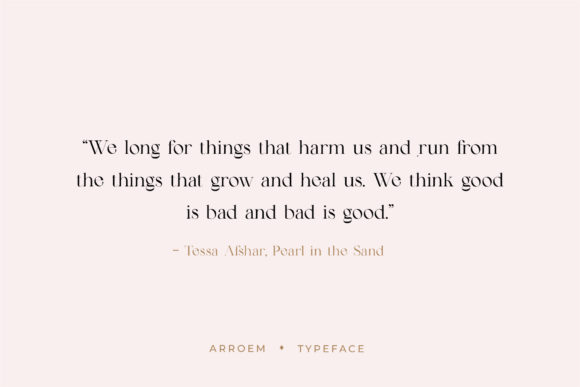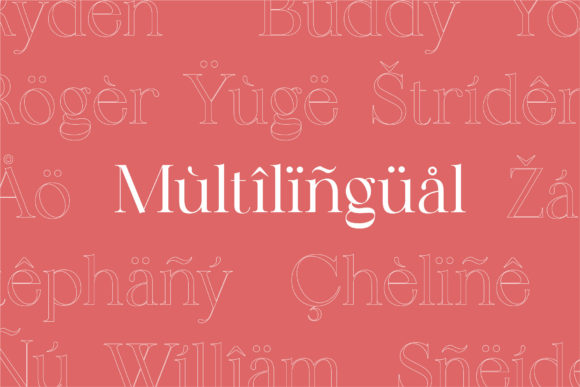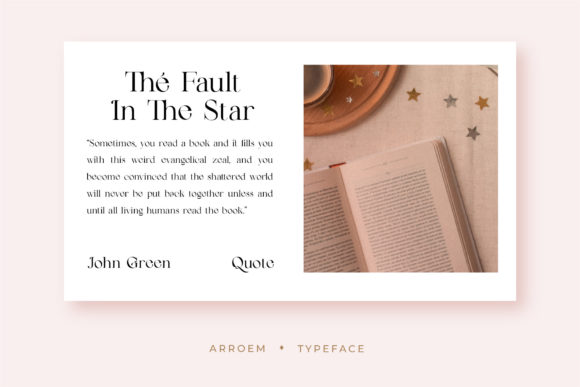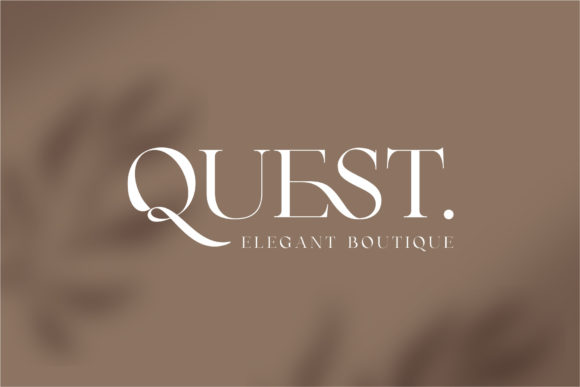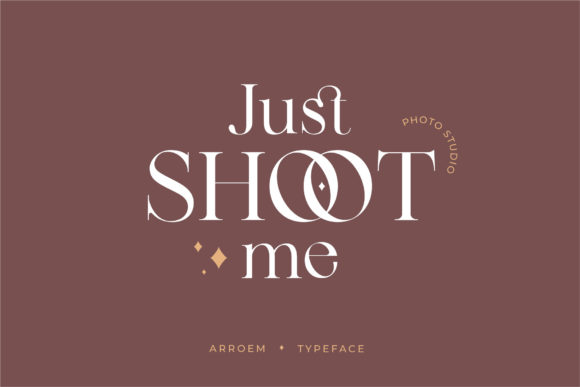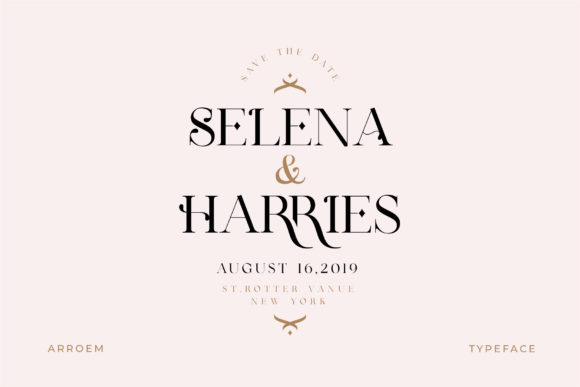
Introducing Arroem Font: Elevate Your Designs with a Stylish Serif Masterpiece
In the world of typography, fonts play a crucial role in making or breaking a design. A well-chosen font can elevate your creation from ordinary to extraordinary. If you’re a designer, crafter, or simply someone who loves to dabble in creative projects, you’re in luck! Today, we’re excited to introduce you to Arroem Font, a stunning mix of modern and classic serif elegance.
What is Arroem Font?
Arroem Font is a thoughtfully crafted serif font that strikes the perfect balance between modern sophistication and classic charm. Its unique blend of styles makes it an incredibly versatile font, suitable for a wide range of design projects. Whether you’re working on a logo, branding materials, invitations, or any other creative endeavor, Arroem Font is sure to impress.
Key Features of Arroem Font
- Stunning Glyphs and Swashes: With Arroem Font, you’ll have access to a wide range of beautiful glyphs and swashes. These decorative elements can be used to add a touch of elegance and sophistication to your designs, making them truly stand out.
- Highly Versatile: Arroem Font is designed to be versatile, making it perfect for various design projects, from logos and branding materials to invitations, packaging, and more.
Why Choose Arroem Font?
With so many fonts available, why should you choose Arroem Font for your next design project? Here are just a few compelling reasons:
- Unique Style: Arroem Font boasts a unique style that sets it apart from other serif fonts. Its blend of modern and classic elements makes it a standout choice for designers looking to create something truly special.
- Enhance Any Creation: Whether you’re working on a simple logo or a complex design project, Arroem Font has the ability to enhance any creation. Its elegant lines and beautiful glyphs will add a touch of sophistication to your work.
How to Use Arroem Font in Your Designs
Using Arroem Font in your designs is easy! Here are a few tips to get you started:
- Experiment with Glyphs and Swashes: Don’t be afraid to experiment with the various glyphs and swashes available in Arroem Font. These decorative elements can add a touch of personality to your designs.
- Pair it with Other Fonts: Arroem Font works beautifully with other fonts. Try pairing it with a sans-serif font for a modern look or with another serif font for a more classic feel.
- Play with Sizes and Colors: Arroem Font looks great in various sizes and colors. Experiment with different sizes and colors to add depth and interest to your designs.